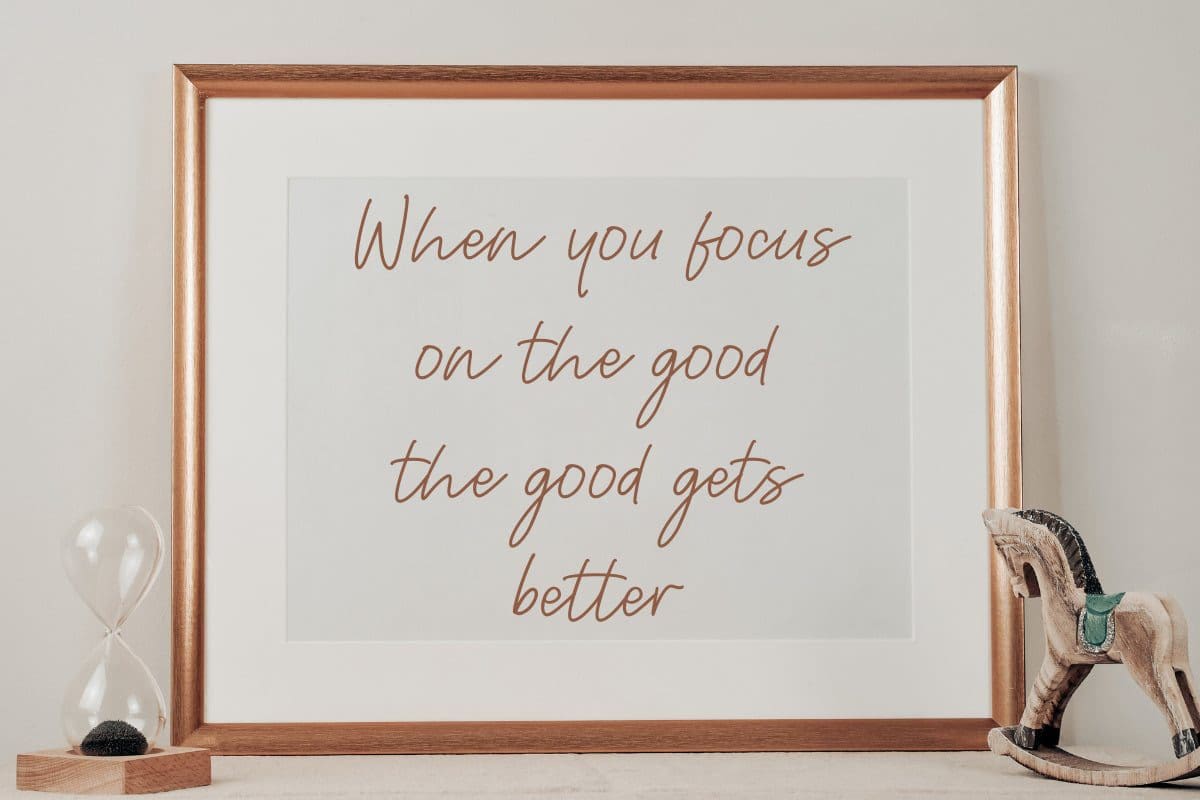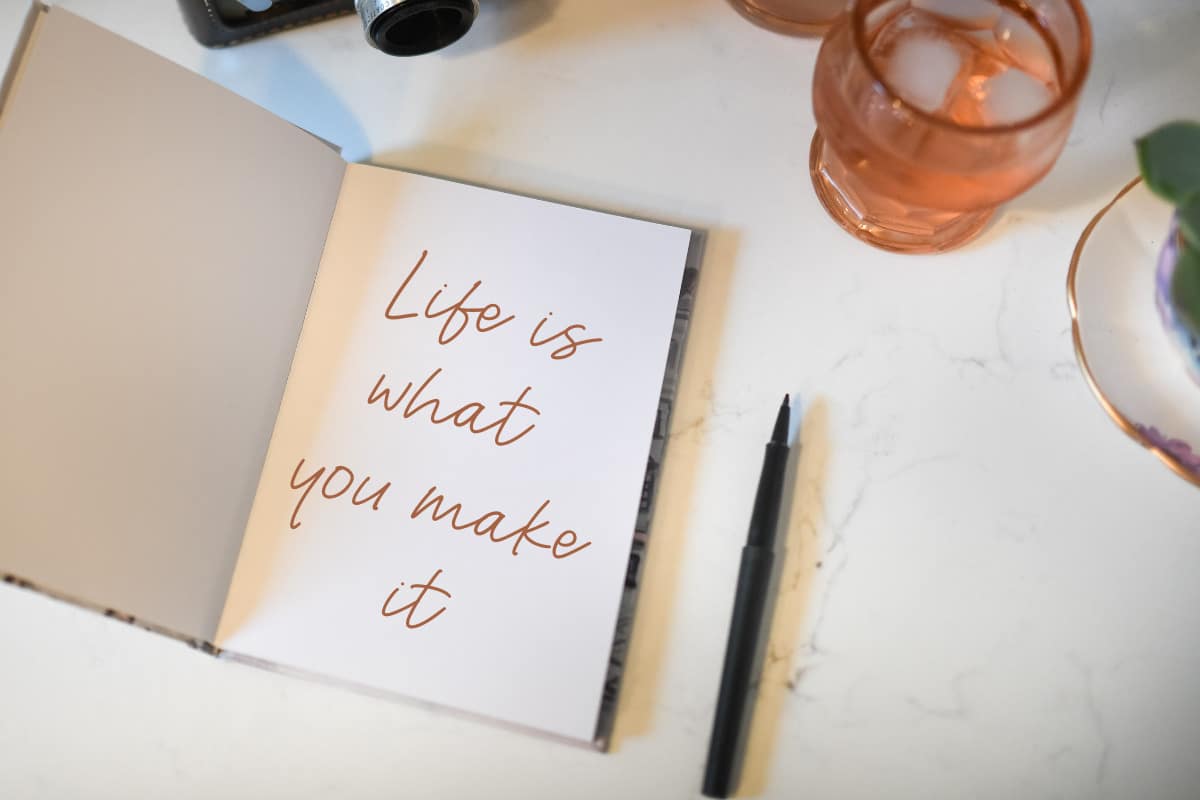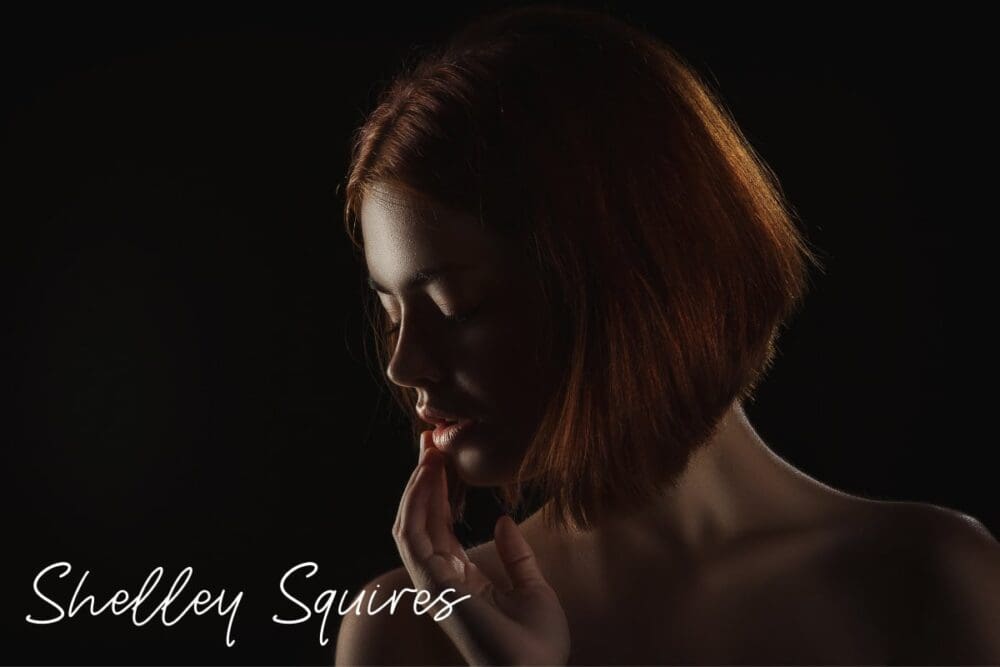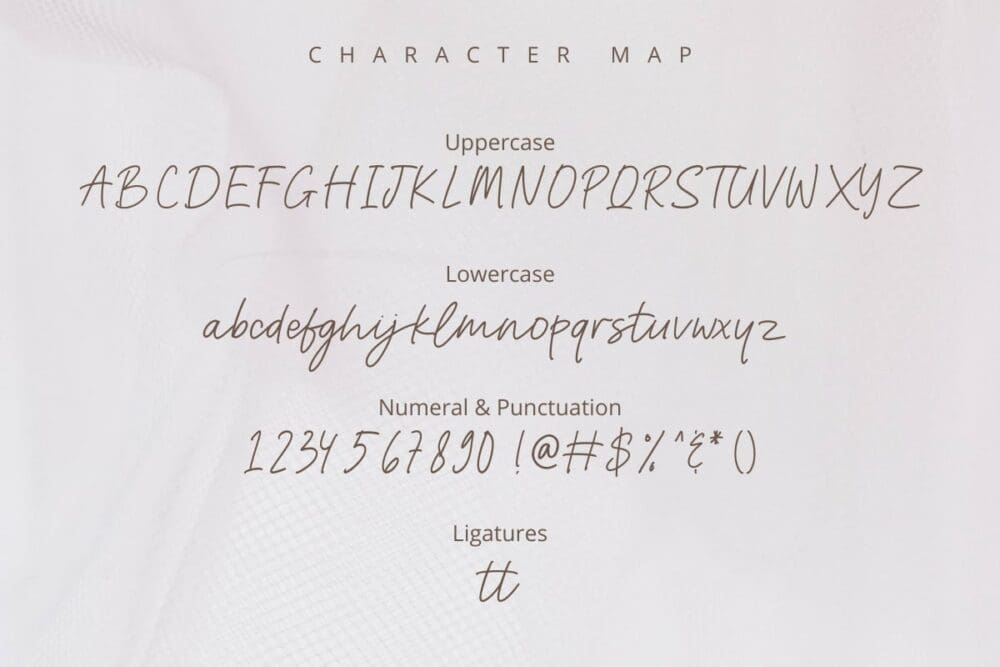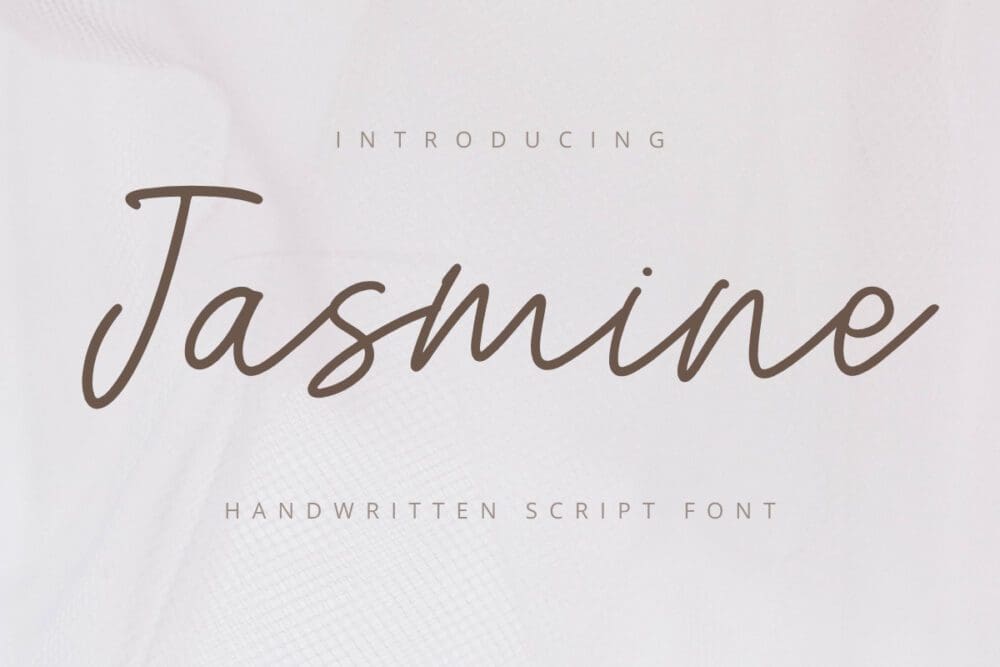
Jamine Font
This is my new font it’s called Jasmine. This font is handwritten font. it’s very suitable to be applied in your design, also it’s perfect for logo, branding, title, social media post, advertisements, product packaging, product designs, label, photography, special event, web design, etc.